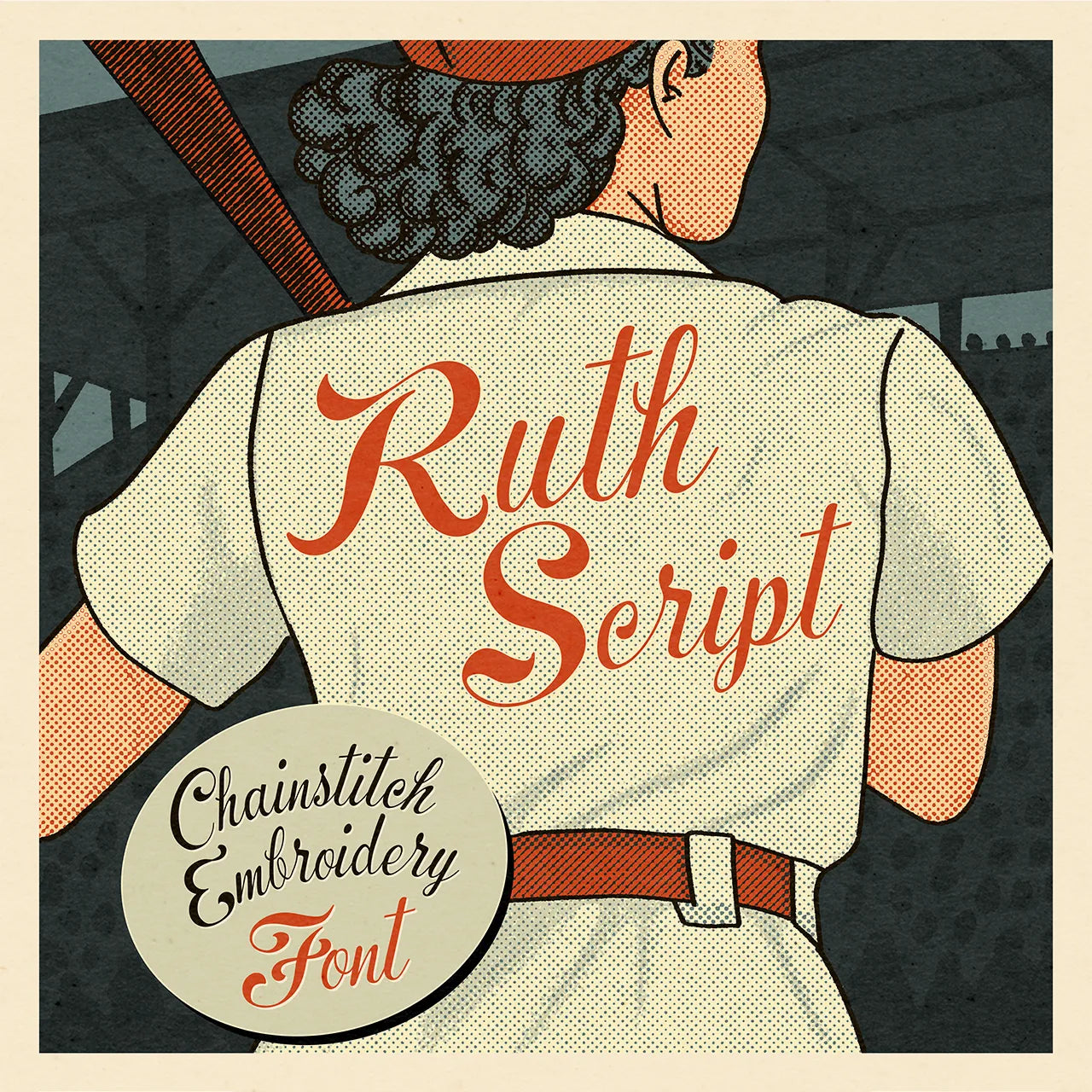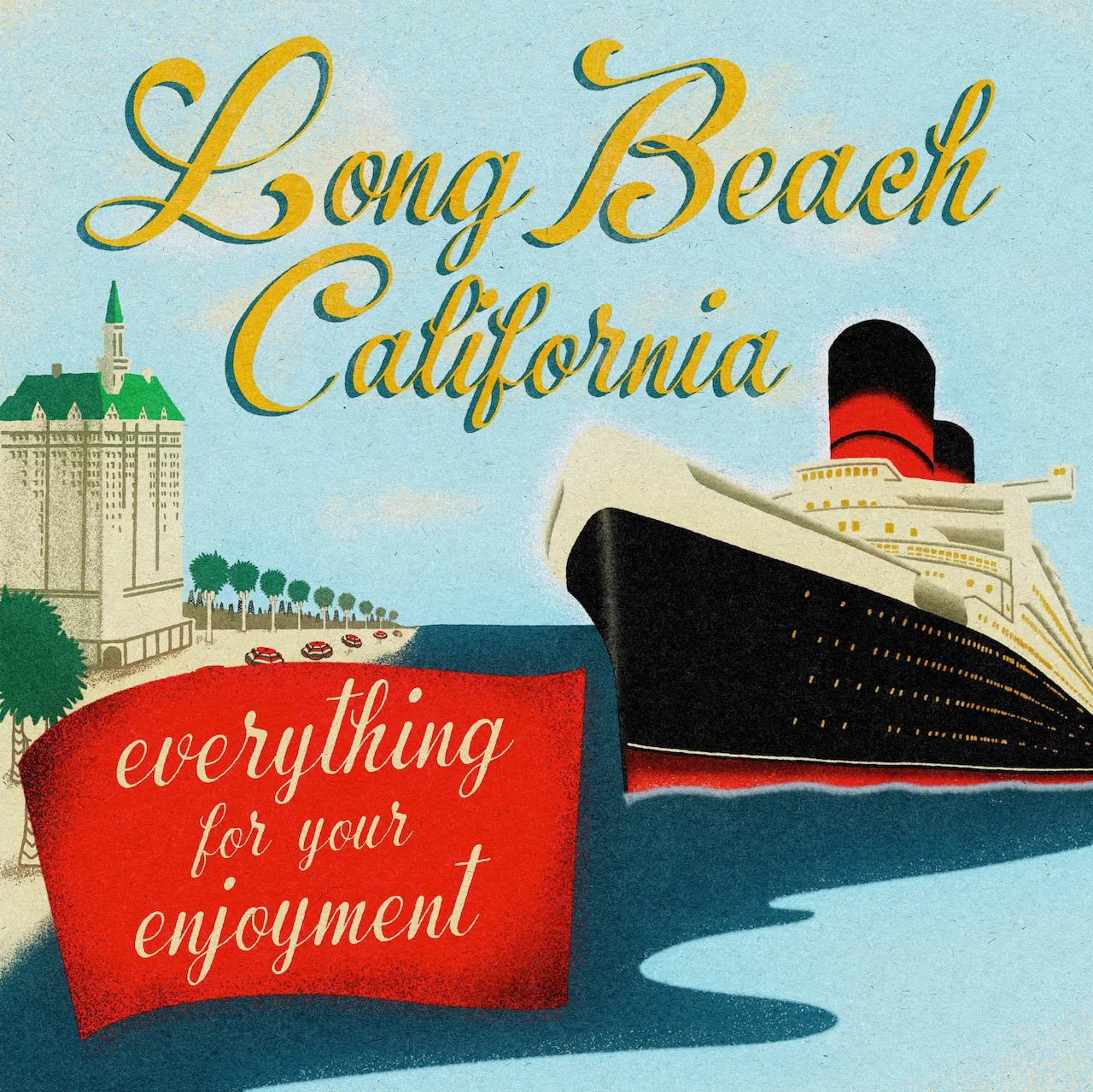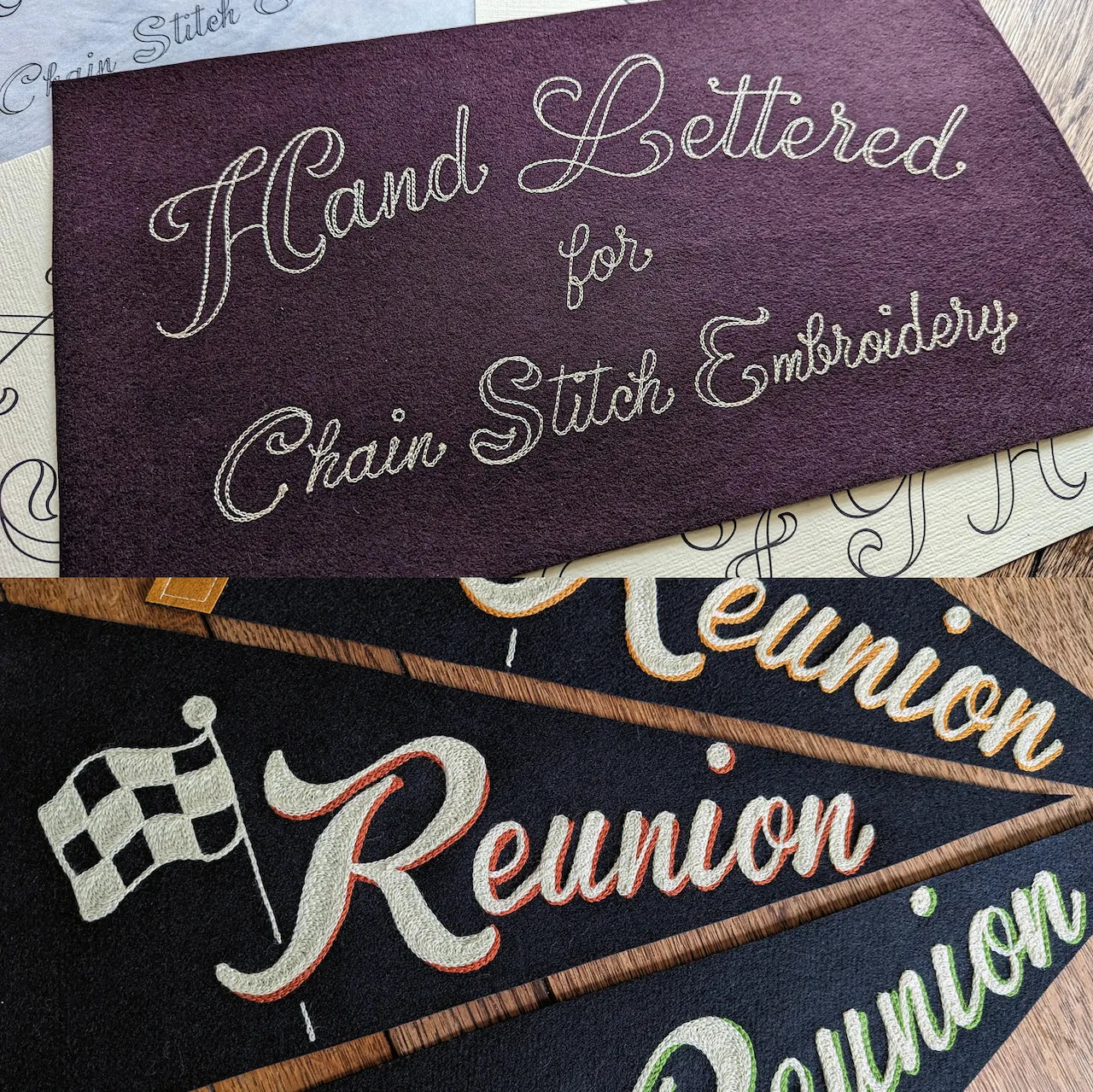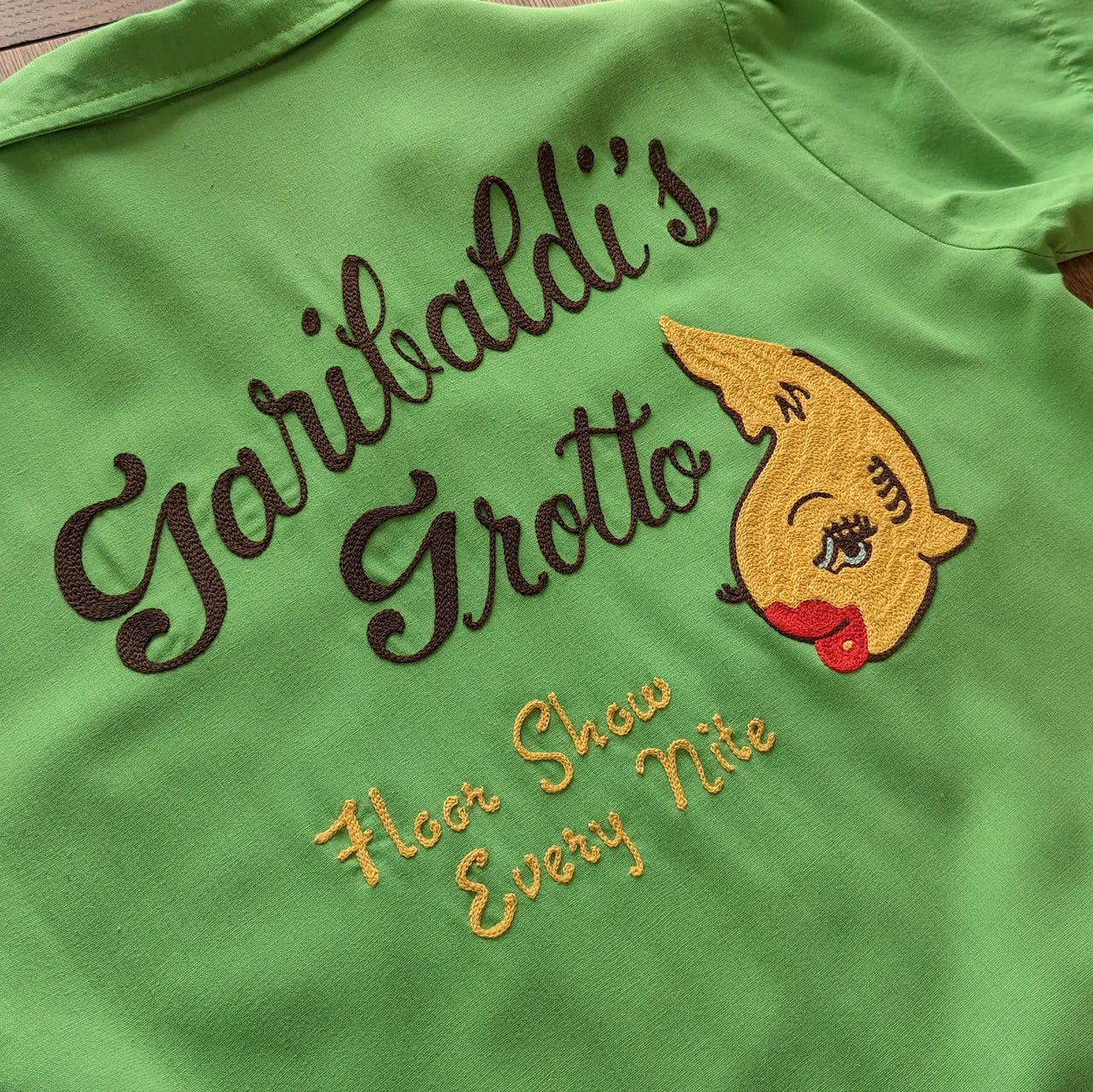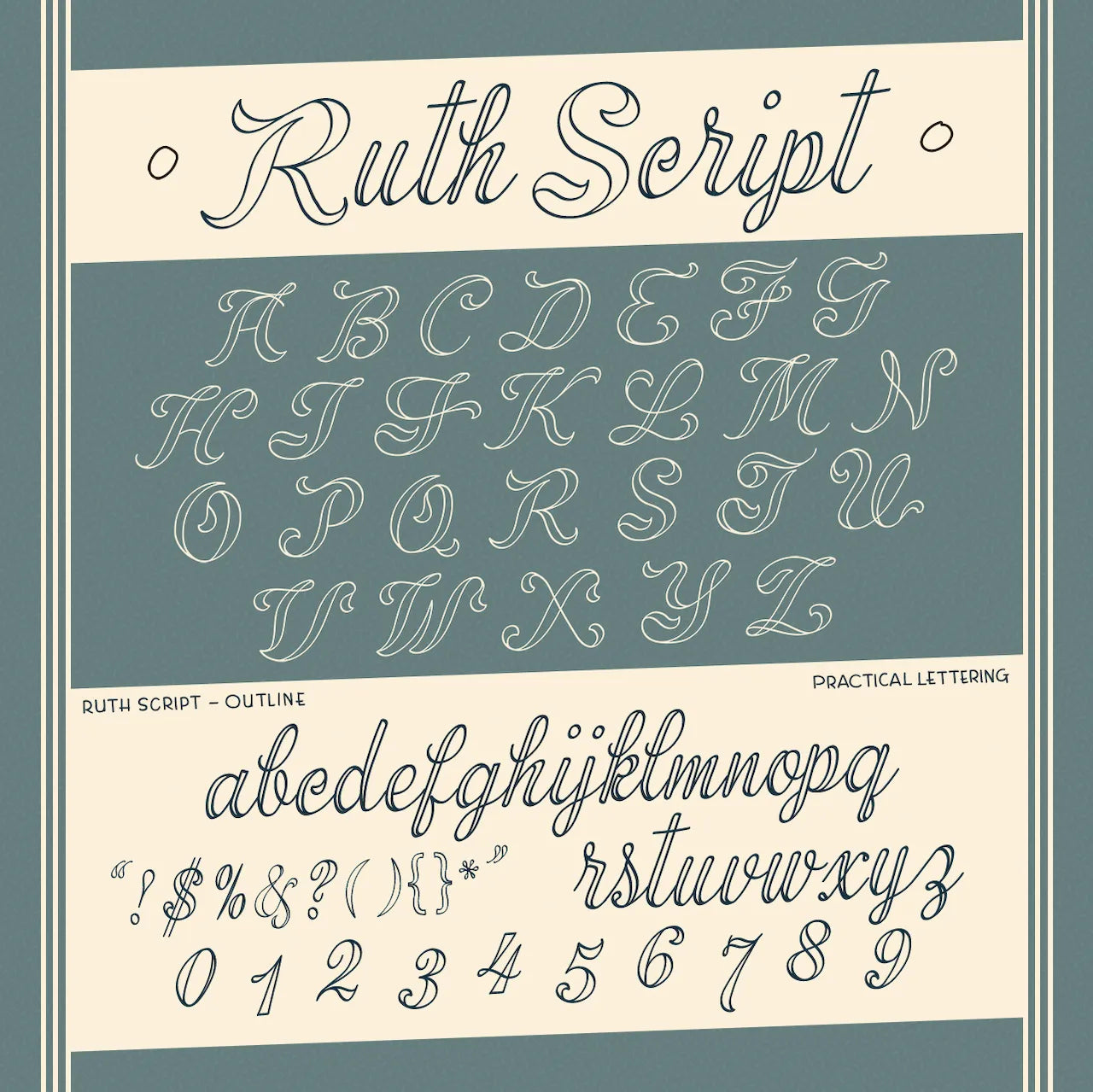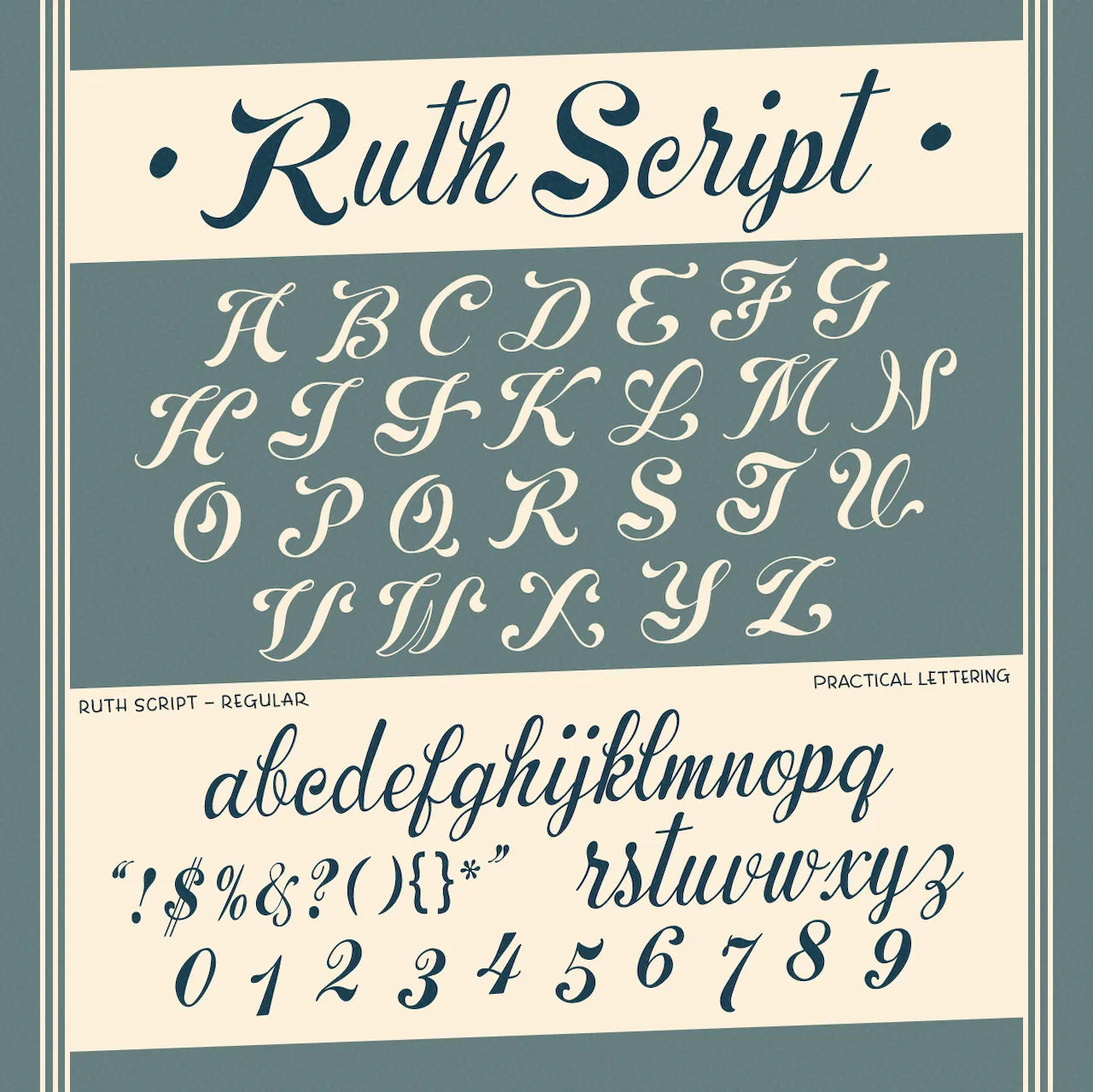
RUTH SCRIPT is a thick & thin script inspired by the bold lettering found on bowling shirts and baseball uniforms in the 1950s, often embroidered with chain-stitch.
Based on Ruth Franklin’s mid-century “Artistic Script,” this revival preserves the charm of the hand-lettered original while extending the character set for modern use.